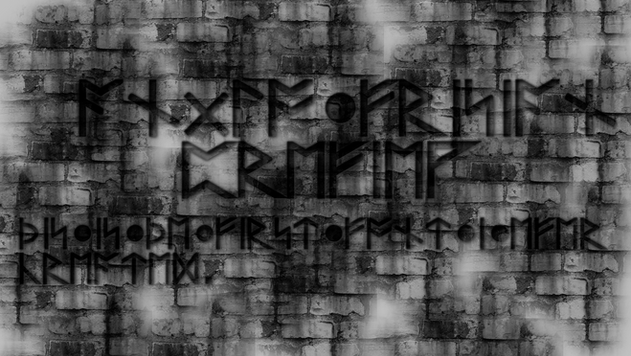
This is a font I created for the Futhark Rune alphabet. I tried to find one for the longest time and couldn't.It's as close to accurate as I could get it. If you type R you're going to get the elder futhark character for R.
There are still a few things that couldn't be accomplished perfectly.
For example, if you want a th (ΓΎ) you need to type v. There is a t and an h in Elder Futhark, but there is also a character for th (ΓΎ). There is not a character for v, so I figured it was a good compromise.
Also C, K, and Q all use the same character (which is for K). I considered making C the same as S, since a C can sound like an S or a K in english depending on how it's used (It is a rather redundant letter) but went with K for the safe side. In general, just know that you probably don't need to write out a C for any reason with this font. It's a redundant character.
The numbers are the Pentadic Rune Numerals. It was the system used in Scandinavia, usually in conjunction to runes. I went with it over the Roman Numerals because it seemed to fit better with the theme.
Edit - So a few people have pointed out a couple errors - which doesn't surprise me at all since I'm most definitely not an expert on runes, and was muddling my way through this with a few sites for references (a couple of which were slightly contradictory). I hope to go back and make a few changes at some point soon. I certainly never expected this to get near this much attention, so I didn't think it mattered too awful much if I made a mistake or two.